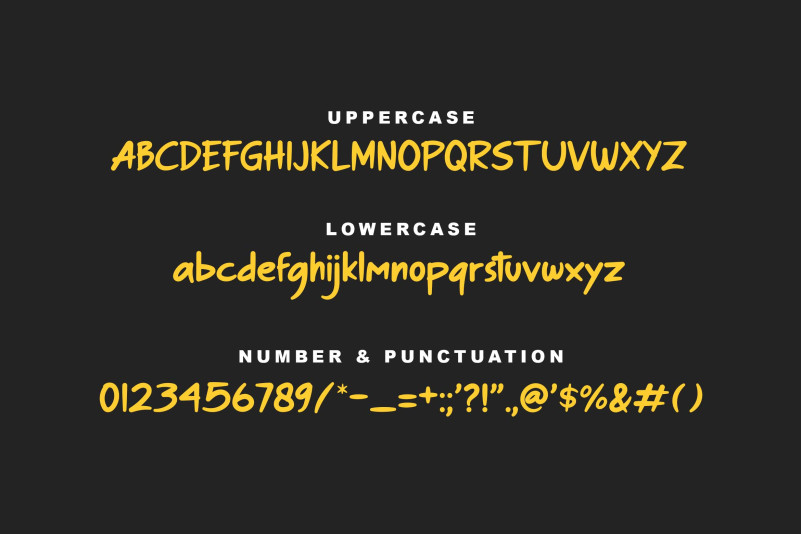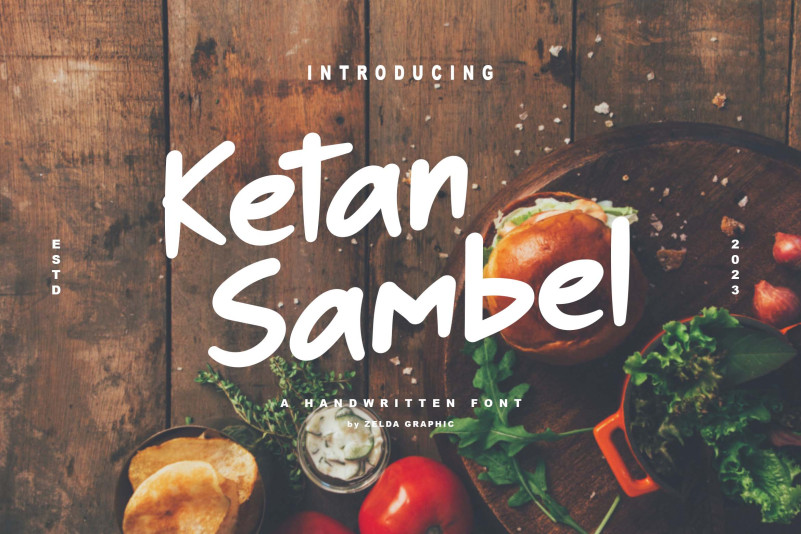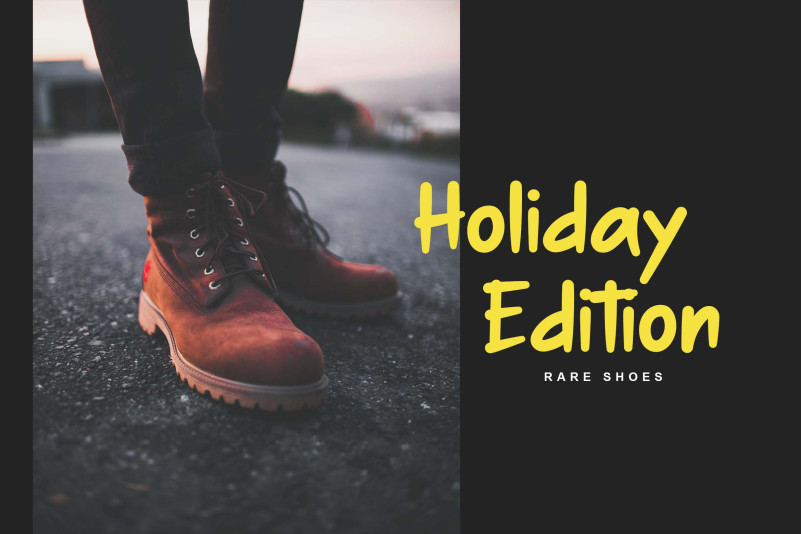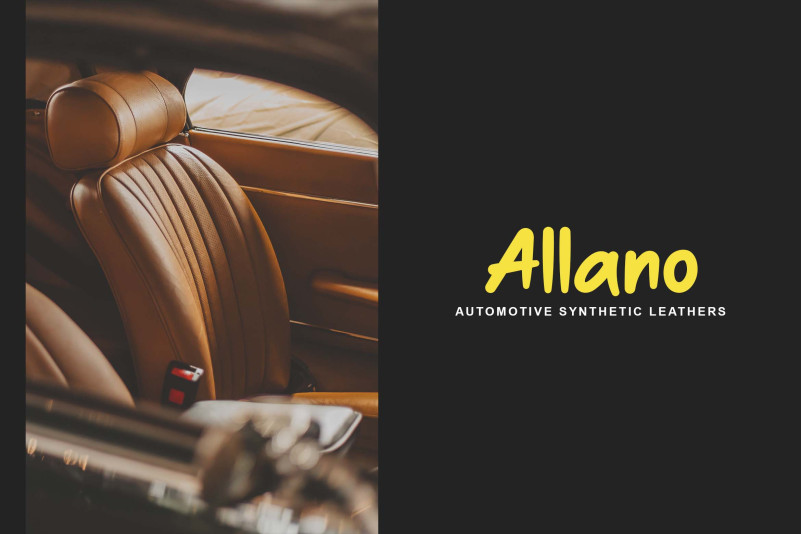
Ketan Sambel Font
Ketan Sambel Display Font is a modern and awesome handwriting font with a natural style. This font is suitable for your current or classic design: Signature. Logo. Branding. Invitation. Blog Headline and many more.